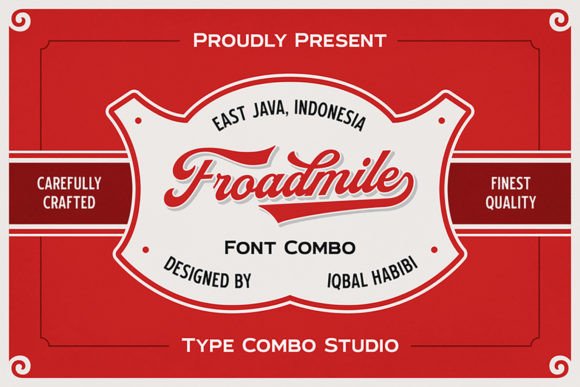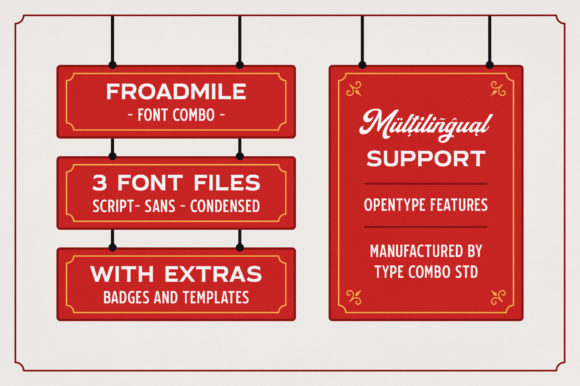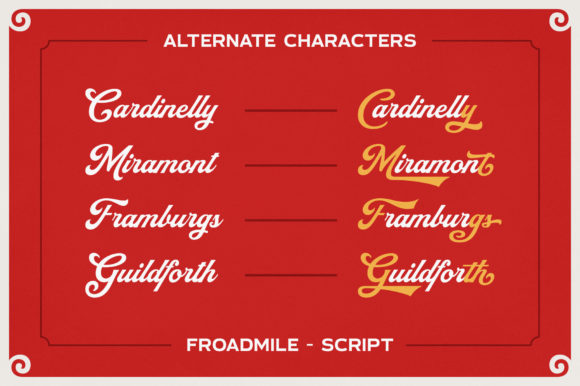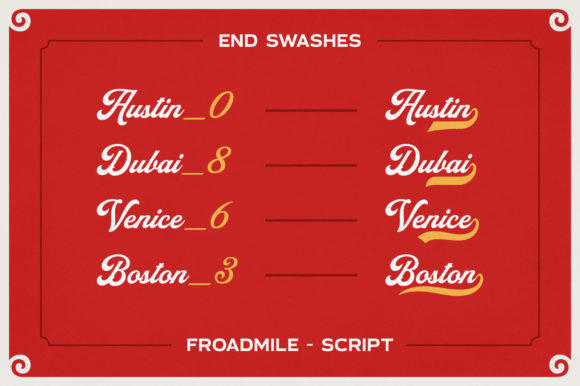
Froadmile Font
About the Froadmile Font
Explore the possibilities with Froadmile Font, a font that offers both beauty and functionality. Create gorgeous and timeless designs with Froadmile, a cute and unique display font. Fall in love with its incredibly stylish look and use it for logos, quotes, invitations, business cards, power point presentations, and more!
Froadmile’s playful yet refined aesthetic makes it ideal for headlines, logos, and short-form text in branding materials, invitations, or posters. Its unique character shines in applications requiring visual impact, but its delicate details might be lost in smaller sizes or extended body text. Avoid using it for lengthy paragraphs or UI elements where readability is paramount.
Consider pairing Froadmile with a clean sans-serif like Lato for a balanced contrast, or a classic serif such as Garamond for a more traditional feel. For a more modern approach, a geometric sans-serif like Montserrat could create a striking juxtaposition.
Froadmile projects a friendly yet sophisticated personality, suitable for brands aiming for a charming and memorable image. Its versatility allows it to work across various styles, from whimsical to slightly edgy, depending on the supporting elements and chosen pairings.